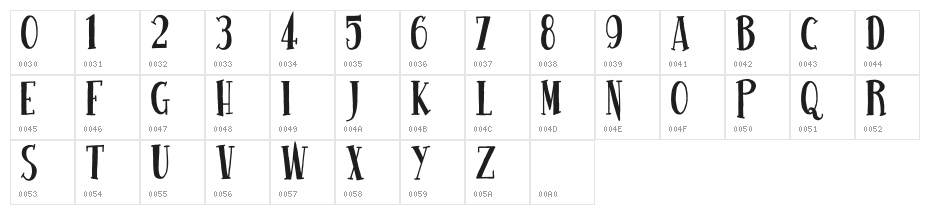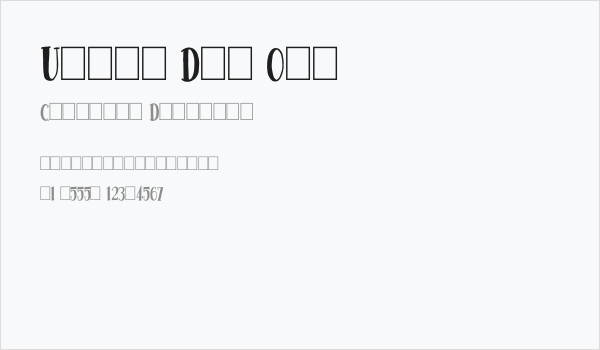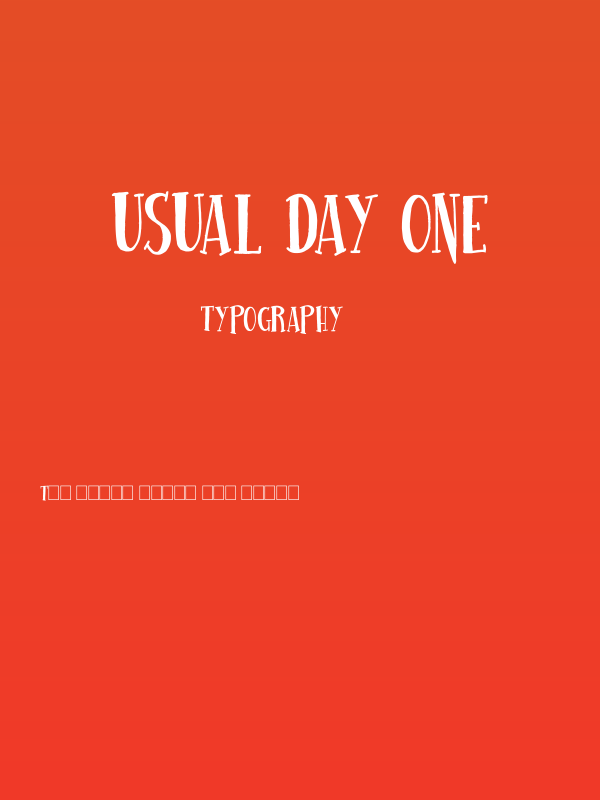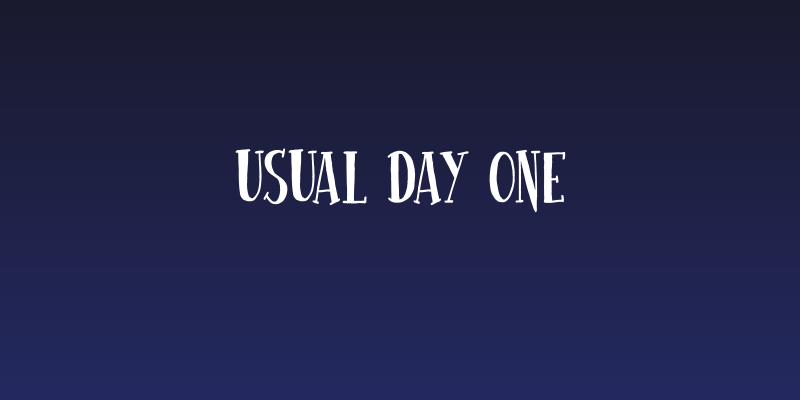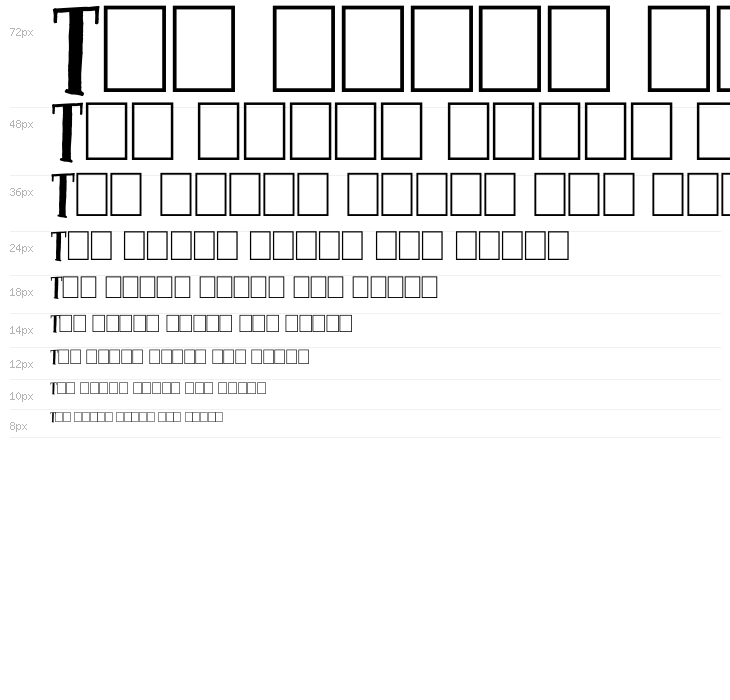
Usual Day One Font
Usual Day One Description
This font features a bold and playful style with a hand-drawn appearance. The letters are tall and slightly narrow, with varying stroke widths that give it a dynamic and lively feel. The uppercase letters are particularly striking, with exaggerated serifs and a whimsical touch that adds character. The lowercase letters maintain the same playful essence, complementing the uppercase set beautifully. Numbers are equally bold and expressive, ensuring consistency across all characters. This font's unique style makes it stand out, perfect for projects that require a touch of creativity and fun.
| Proposed Projects | Ideal for children's books, playful branding, posters, and creative invitations. |